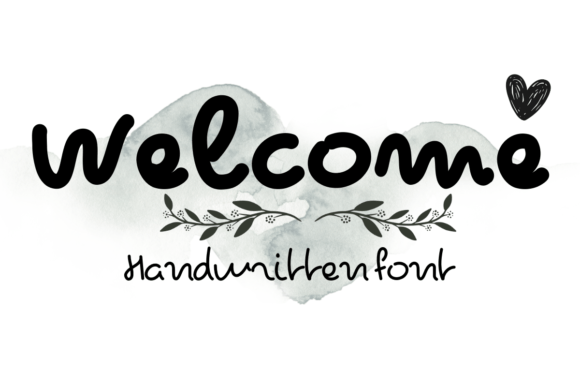
Welcome Font Download Script Fonts : When you want your designs to feel warm, personal, and inviting, the Welcome font is a natural choice. This charming handwritten typeface captures the casual flow of real handwriting, making it perfect for projects where authenticity matters. Whether you’re designing a greeting card, jotting down notes, or creating an Instagram post that needs a friendly touch, Welcome can help you communicate with heart.
About the Welcome Font
The Welcome font is part of the handwritten font category, which means it mimics the natural strokes, curves, and imperfections of human handwriting. Its design is casual yet tidy, making it versatile enough for both personal and commercial uses.
What sets Welcome apart is its approachable style — it looks like something you’d write in a friendly letter or a personal note, yet it retains enough structure to be readable in digital and printed formats.
Main Features
Handwritten aesthetic: Organic strokes that resemble natural penmanship.
Versatility: Suitable for multiple mediums, from paper to screen.
Readable: Even in smaller sizes, the letters remain clear.
Warm personality: Adds an emotional, personal connection to your designs.
Best Uses for the Welcome Font
Because of its handwritten charm, the Welcome font works beautifully in situations where you want to convey friendliness, informality, and human connection. Here are some ideas:
Greeting Cards & Invitations
Perfect for birthdays, weddings, baby showers, and holiday cards, Welcome makes your text feel heartfelt and personal. -
Stationery & Journals
Whether designing personalized notebooks or custom planners, this font brings warmth to every page. -
Social Media Posts
Ideal for quote images, announcements, and captions where you want a “written-by-hand” feel. -
Branding for Friendly Businesses
Cafés, bakeries, small boutiques, and handmade product brands can use Welcome for logos, menus, and signage to reinforce their approachable vibe. -
DIY Crafts
From mugs and t-shirts to tote bags and posters, the font works well in craft designs made with Cricut or Silhouette machines. -
Educational Materials
Teachers can use Welcome for worksheets, flashcards, and classroom décor to create an engaging, fun learning atmosphere.
Design Pairing Tips
While Welcome can be used alone, pairing it with the right fonts can elevate your design.
For headlines + body text: Use Welcome for headlines and pair with a clean sans-serif (like Open Sans or Lato) for body text.
For elegant contrast: Combine with a thin serif font like Playfair Display to balance casual and sophisticated styles.
For playful projects: Pair with bold rounded sans-serifs (like Poppins Rounded) to maintain a cheerful tone.
Pro Tip: Avoid pairing with other highly decorative handwritten fonts — too many competing styles can make your design look messy.
Color & Styling Suggestions
Since Welcome has a natural, relaxed look, it works well with:
Soft pastel colors for gentle, heartfelt messages.
Earth tones for organic, rustic branding.
Bright, cheerful hues for children’s products or fun events.
You can also add effects like:
Watercolor backgrounds for greeting cards.
Chalkboard textures for café menus.
Subtle shadows to make text pop on digital designs.
Advantages of Using Welcome
Personalized feel: Adds warmth and authenticity to designs.
Readability: Clear enough for both short and medium-length text.
Versatility: Suitable for both digital and print work.
Emotionally engaging: Creates a sense of friendliness and trust.
Possible Limitations
While Welcome is versatile, there are scenarios where it may not be the best choice:
Conclusion
The Welcome font lives up to its name — it invites people in with its personal, handwritten style. From heartfelt greeting cards to branding for cozy small businesses, it adds an approachable human touch to any design. By pairing it thoughtfully with other fonts, choosing the right colors, and respecting its licensing terms, you can make the most of this versatile handwritten typeface.
If you’re looking to make your next design more personal, warm, and welcoming, this font is a great choice.